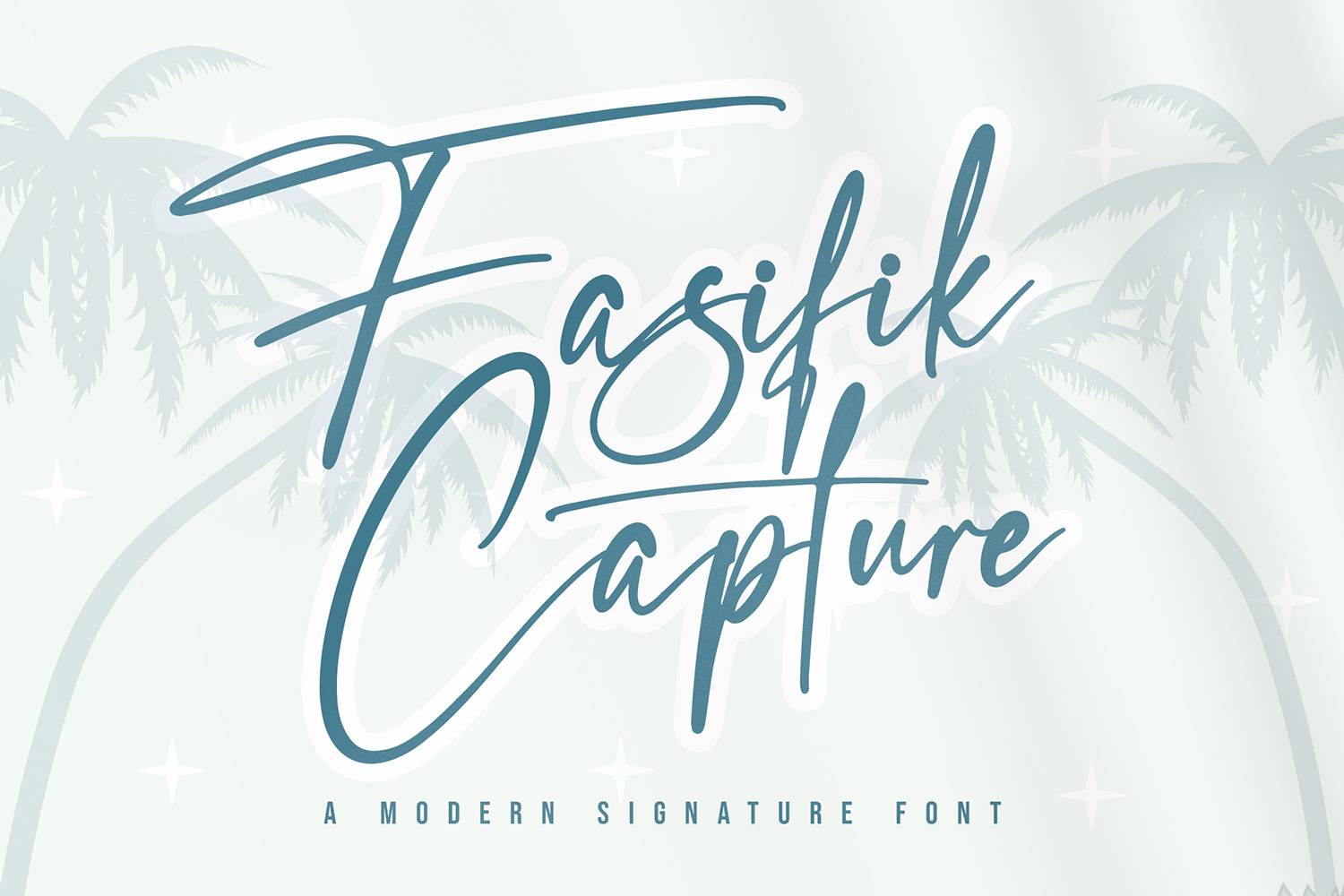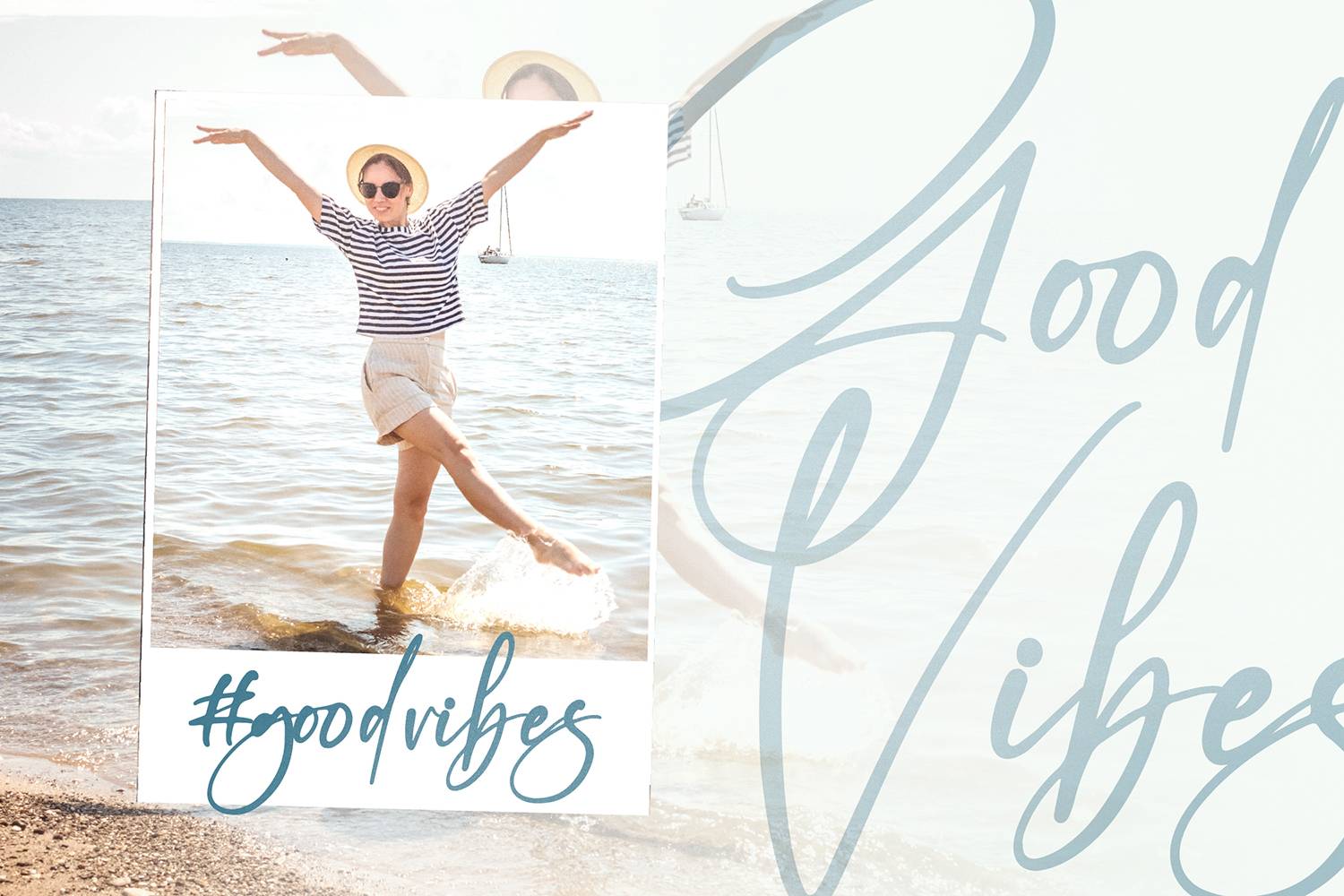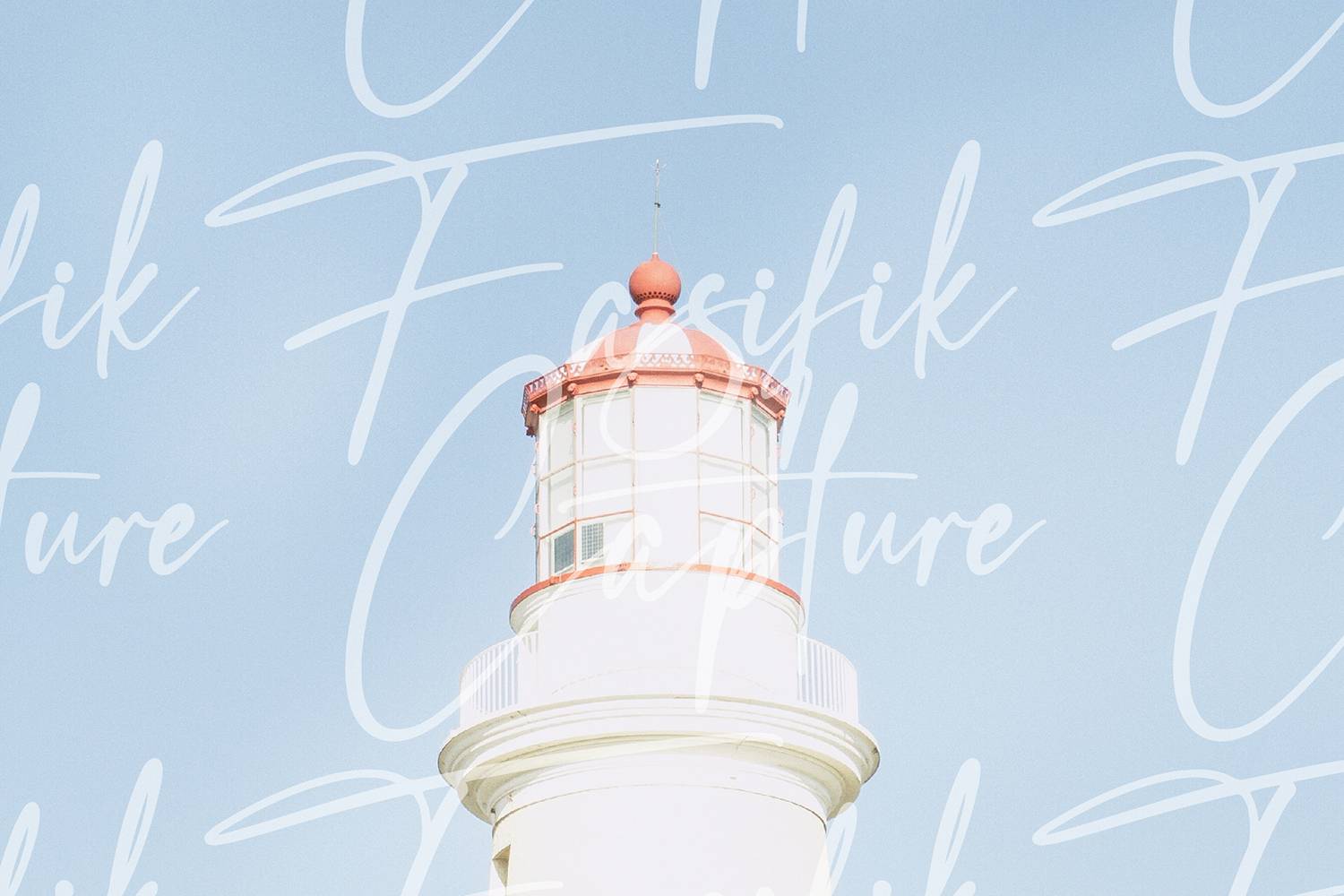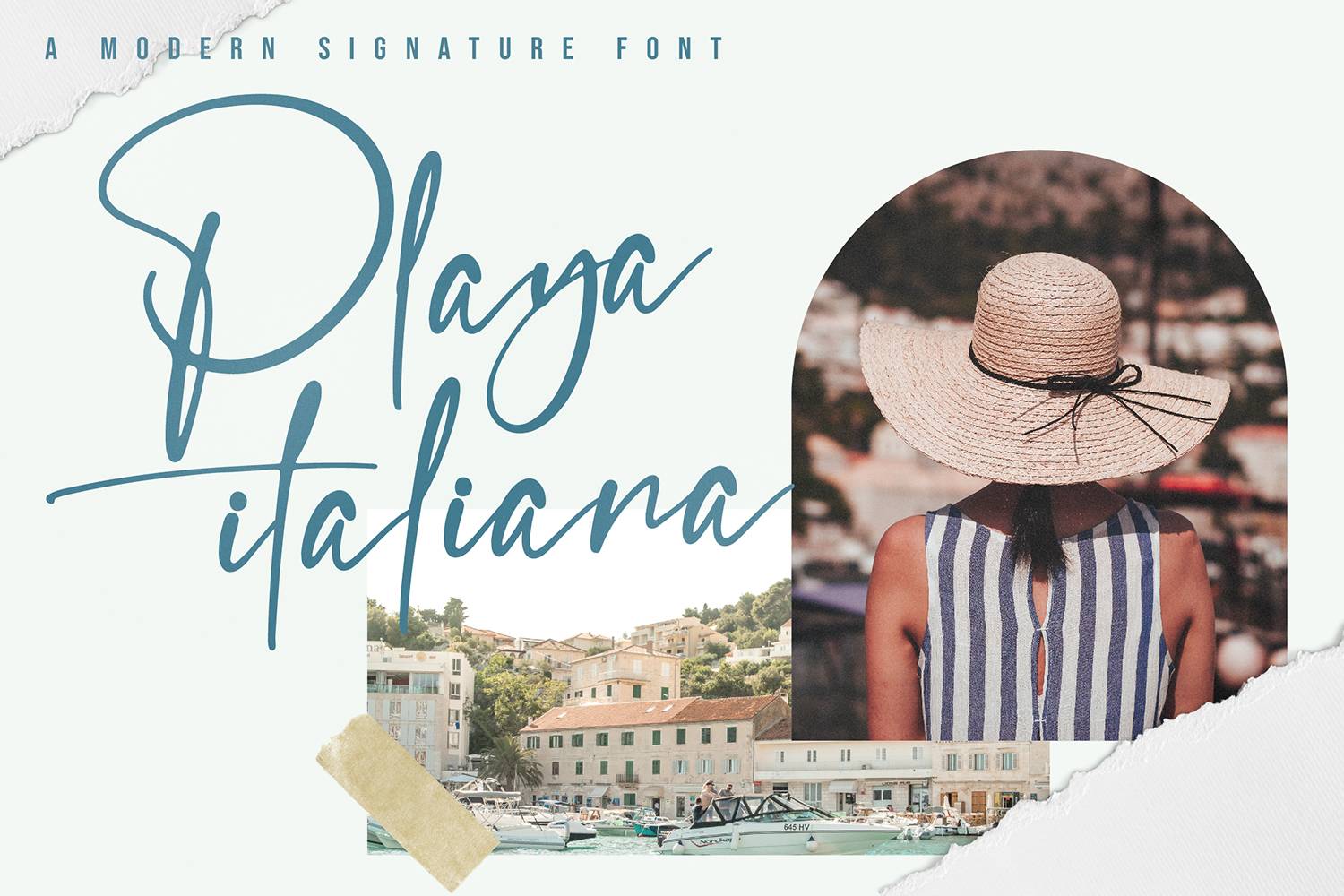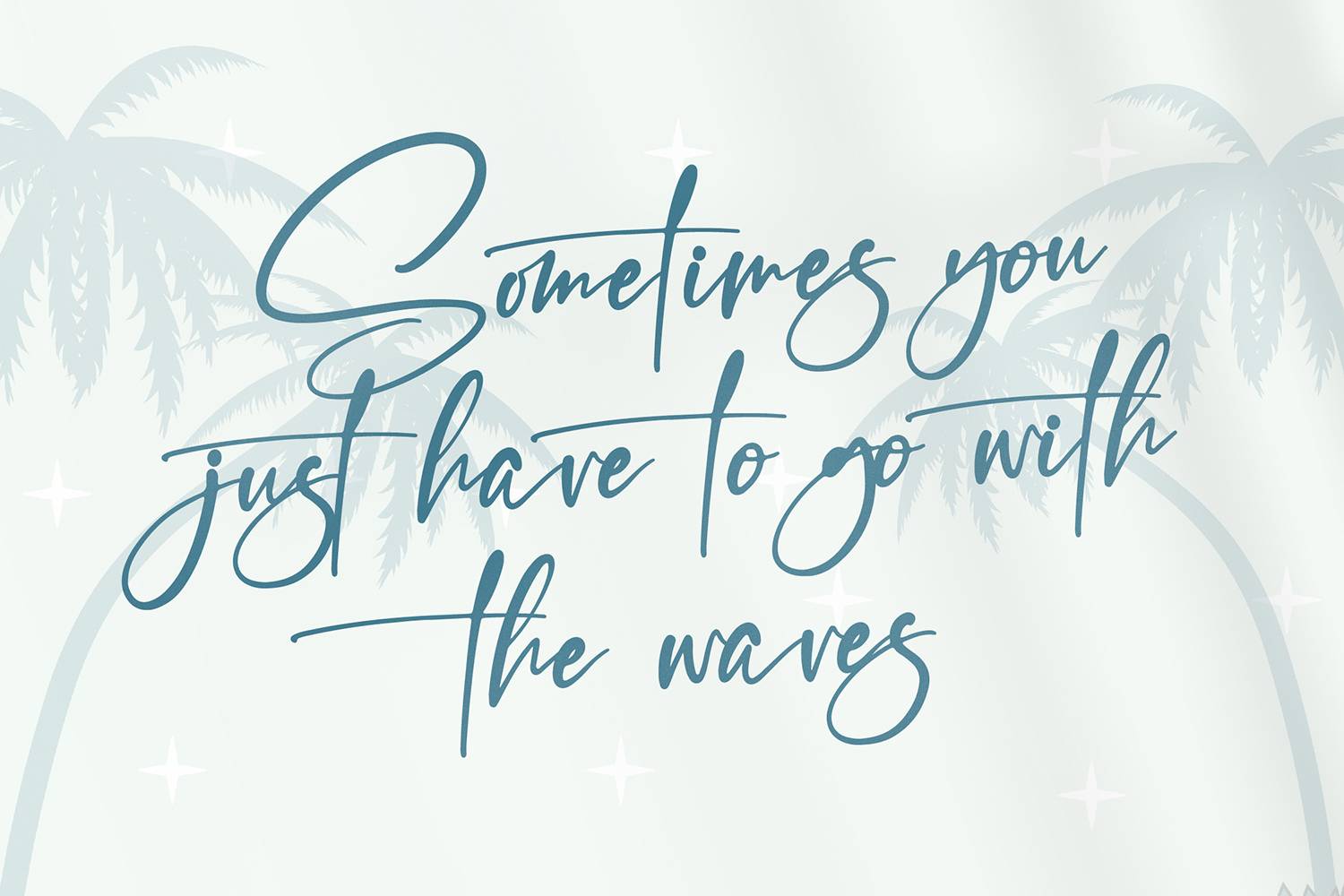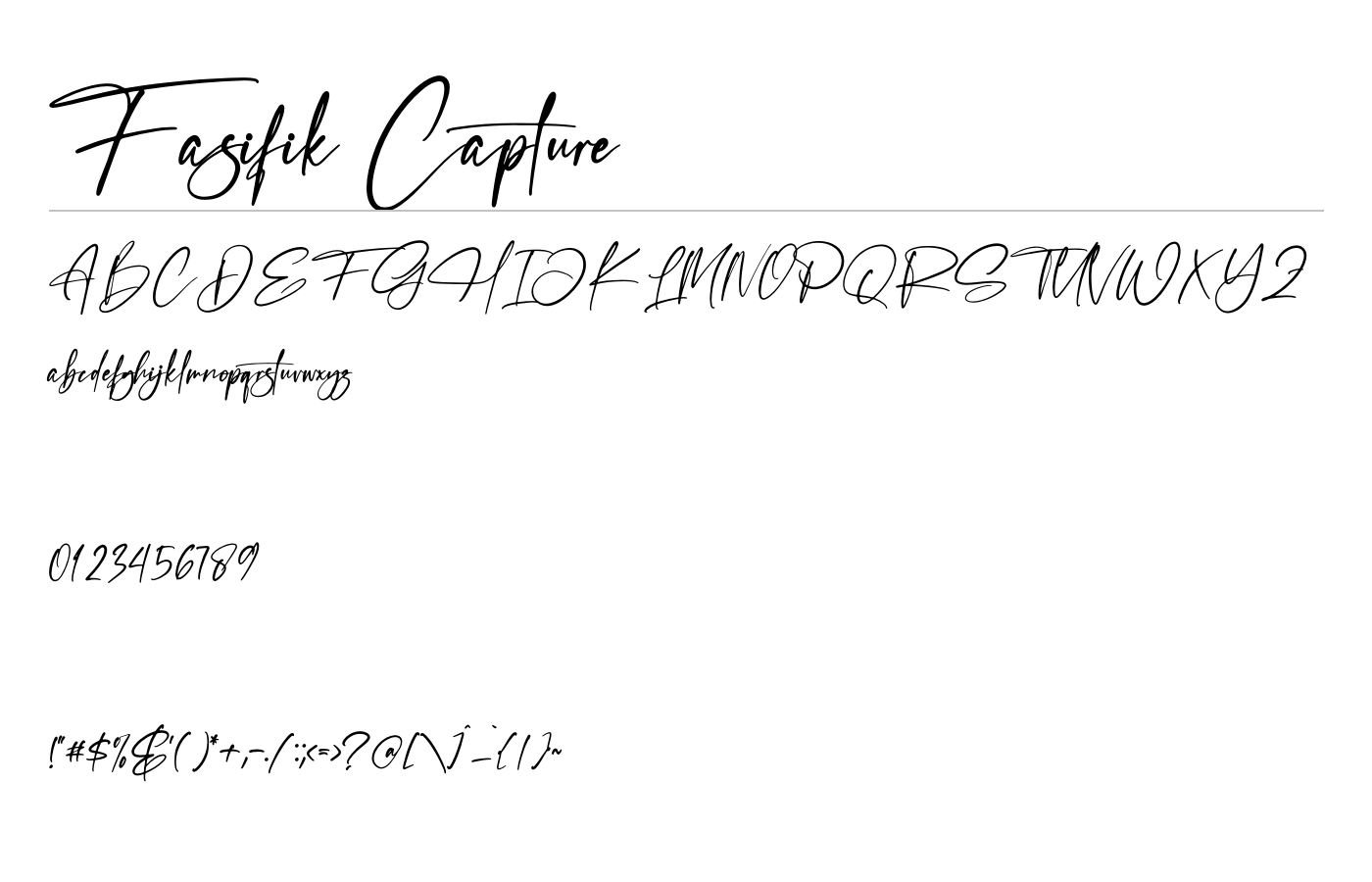
Fasifik Capture is a stylish, handwritten script font with a light, airy feel and elegant flowing strokes. Its tall x-height and smooth, slightly irregular lines give it a modern, personal touch, making it perfect for fashion branding, invitations, and creative projects that seek a sophisticated yet approachable vibe. This font works beautifully in logos and headlines where a contemporary, artistic flair is desired.
Fasifik Capture Font
About Fasifik Capture Font